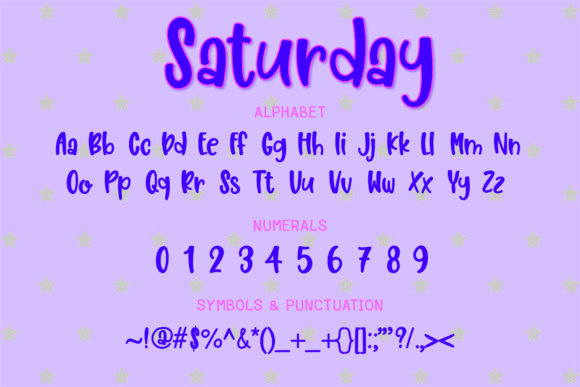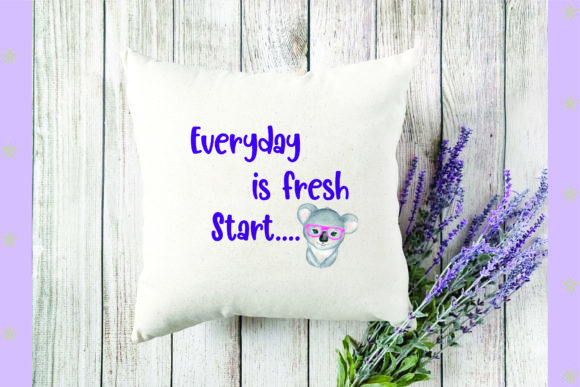
Saturday Font
db-ku.com - Script & Handwritten -- Saturday is a cute and playful handwritten font that features sweet and delicate swashes. This original look will appeal to a wide range of crafty ideas, from letterheads and titles, to stationery.